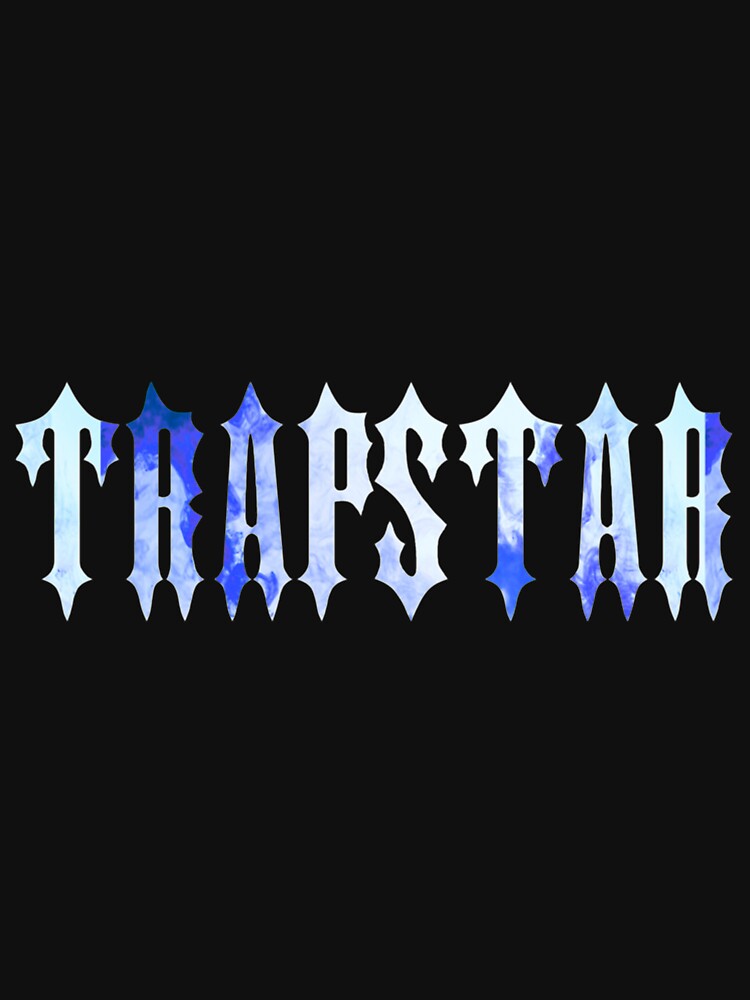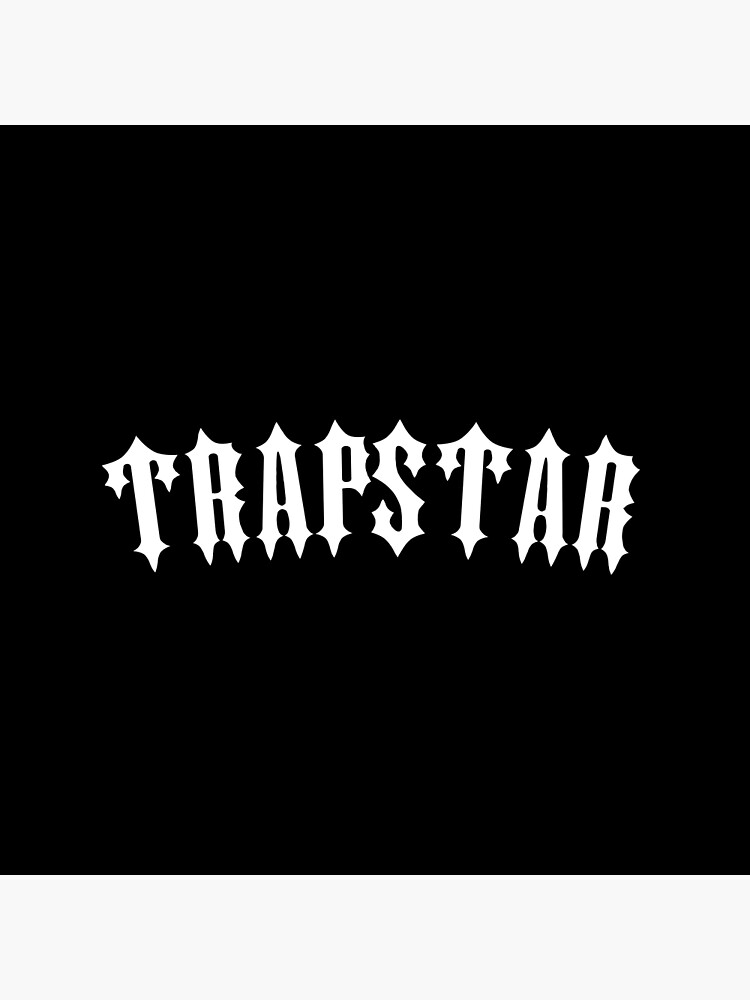
Trapstar Logo Font . The font used is ironwood medium, or try free alternatives like slayer. The time is now 23:32. Download free alternatives to ironwood and. Irongate is a gothic modern font with freeform serifs and condensed width. It is not the same as trapstar logo font, which is a different style and. Oct 25, 2024 at 10:21. Browse by alphabetical listing, by style, by author or by popularity. Yup itβs the trapstar aaaaaaaaaa. This text font was made. It takes its name from trap music, a subgenre of rap that originated in. Archive of freely downloadable fonts. Trapstar logo font (ππππ & πππππ) more fonts.
Yup itβs the trapstar aaaaaaaaaa. Trapstar logo font (ππππ & πππππ) more fonts. Irongate is a gothic modern font with freeform serifs and condensed width. Archive of freely downloadable fonts. It takes its name from trap music, a subgenre of rap that originated in. Download free alternatives to ironwood and. The time is now 23:32. Oct 25, 2024 at 10:21. This text font was made. Browse by alphabetical listing, by style, by author or by popularity.
Trapstar Logo Font This text font was made. The font used is ironwood medium, or try free alternatives like slayer. It takes its name from trap music, a subgenre of rap that originated in. Archive of freely downloadable fonts. Download free alternatives to ironwood and. Irongate is a gothic modern font with freeform serifs and condensed width. This text font was made. Browse by alphabetical listing, by style, by author or by popularity. Yup itβs the trapstar aaaaaaaaaa. The time is now 23:32. Oct 25, 2024 at 10:21. Trapstar logo font (ππππ & πππππ) more fonts. It is not the same as trapstar logo font, which is a different style and.
Trapstar Alphabet Trapstar Logo Font Download free alternatives to ironwood and. The font used is ironwood medium, or try free alternatives like slayer. Browse by alphabetical listing, by style, by author or by popularity. This text font was made. It is not the same as trapstar logo font, which is a different style and. Archive of freely downloadable fonts. Yup itβs the trapstar aaaaaaaaaa. It. Trapstar Logo Font.
Π’ΡΠ°ΠΏΡΡΠ°Ρ Trapstar Logo Font The time is now 23:32. It is not the same as trapstar logo font, which is a different style and. Trapstar logo font (ππππ & πππππ) more fonts. Archive of freely downloadable fonts. Irongate is a gothic modern font with freeform serifs and condensed width. This text font was made. Oct 25, 2024 at 10:21. Browse by alphabetical listing, by. Trapstar Logo Font.
Trapstar Font Fontzaa Fonts Free Download Trapstar Logo Font This text font was made. Archive of freely downloadable fonts. It is not the same as trapstar logo font, which is a different style and. Yup itβs the trapstar aaaaaaaaaa. Download free alternatives to ironwood and. Trapstar logo font (ππππ & πππππ) more fonts. Browse by alphabetical listing, by style, by author or by popularity. The font used is ironwood. Trapstar Logo Font.
Trapstar Font and Logo Free Download FontSwan Trapstar Logo Font Oct 25, 2024 at 10:21. Yup itβs the trapstar aaaaaaaaaa. Irongate is a gothic modern font with freeform serifs and condensed width. The font used is ironwood medium, or try free alternatives like slayer. This text font was made. Archive of freely downloadable fonts. The time is now 23:32. It is not the same as trapstar logo font, which is. Trapstar Logo Font.
Trapstar Logo 4k Trapstar Logo Font Archive of freely downloadable fonts. It takes its name from trap music, a subgenre of rap that originated in. Yup itβs the trapstar aaaaaaaaaa. Trapstar logo font (ππππ & πππππ) more fonts. Download free alternatives to ironwood and. Browse by alphabetical listing, by style, by author or by popularity. The time is now 23:32. It is not the same as. Trapstar Logo Font.
"Trapstar London logo design" Tshirt for Sale by HaayBracken Redbubble its a secret t Trapstar Logo Font The time is now 23:32. Trapstar logo font (ππππ & πππππ) more fonts. This text font was made. It is not the same as trapstar logo font, which is a different style and. Browse by alphabetical listing, by style, by author or by popularity. Archive of freely downloadable fonts. It takes its name from trap music, a subgenre of rap. Trapstar Logo Font.
Trapstar Wallpapers Top Free Trapstar Backgrounds WallpaperAccess Trapstar Logo Font Download free alternatives to ironwood and. Browse by alphabetical listing, by style, by author or by popularity. It is not the same as trapstar logo font, which is a different style and. Irongate is a gothic modern font with freeform serifs and condensed width. Yup itβs the trapstar aaaaaaaaaa. The font used is ironwood medium, or try free alternatives like. Trapstar Logo Font.
Trapstar London Logo Trapstar Logo Font Browse by alphabetical listing, by style, by author or by popularity. This text font was made. Trapstar logo font (ππππ & πππππ) more fonts. Yup itβs the trapstar aaaaaaaaaa. Archive of freely downloadable fonts. Oct 25, 2024 at 10:21. The font used is ironwood medium, or try free alternatives like slayer. Download free alternatives to ironwood and. The time is. Trapstar Logo Font.